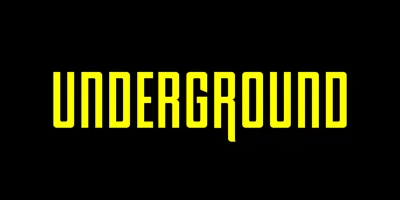
Underground Font
Underground Font is perfect for subway system signage, urban transportation branding, metropolitan transit materials, industrial design projects, modern architectural wayfinding, city infrastructure graphics, public transit applications, and contemporary urban planning presentations. This iconic typeface brings metropolitan sophistication and transit authority to any design project requiring clear navigation and urban aesthetic appeal.
What makes Underground Font exciting is its legendary status as the definitive transport typography that perfectly balances functionality with timeless modernist design principles established in London's iconic tube system. The clean, geometric letterforms feature optimal legibility and distinctive character spacing that ensure excellent readability in challenging urban environments. Each character embodies the efficiency and clarity essential for public transportation while maintaining sophisticated design integrity that has influenced urban typography worldwide.
The Underground Font family includes multiple weights from light to bold, complete with uppercase and lowercase letters, numbers, punctuation marks, and specialized transit symbols. The comprehensive character set encompasses directional indicators, station markers, and wayfinding elements that enhance the transportation aesthetic and provide functionality for comprehensive urban navigation systems.
Whether you're developing metropolitan transit brands or creating urban infrastructure materials, Underground Font offers unmatched authority and navigational clarity. This legendary typography choice transforms complex wayfinding information into intuitive visual guidance that resonates with millions of urban commuters and travelers. The font's exceptional performance across various signage applications ensures consistent public recognition while maintaining its distinctive metropolitan character that makes every design project feel like an integral part of the world's most sophisticated urban transportation networks.